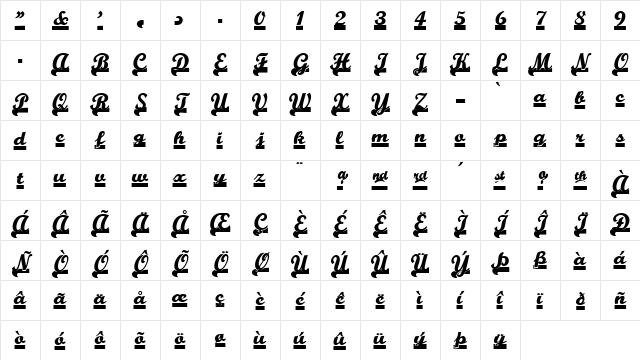
TeamSpirit Normal Free Font
TeamSpirit Normal
TeamSpirit Family
Design Context for TeamSpirit
TeamSpirit is a composed and adaptable typeface that performs quietly and consistently across a wide range of design contexts.